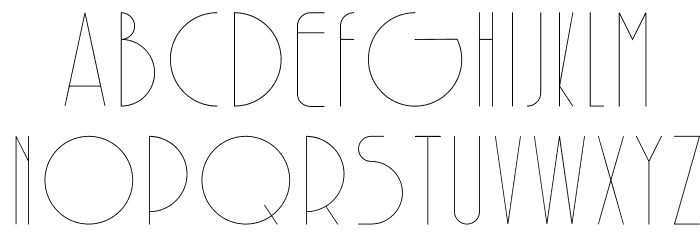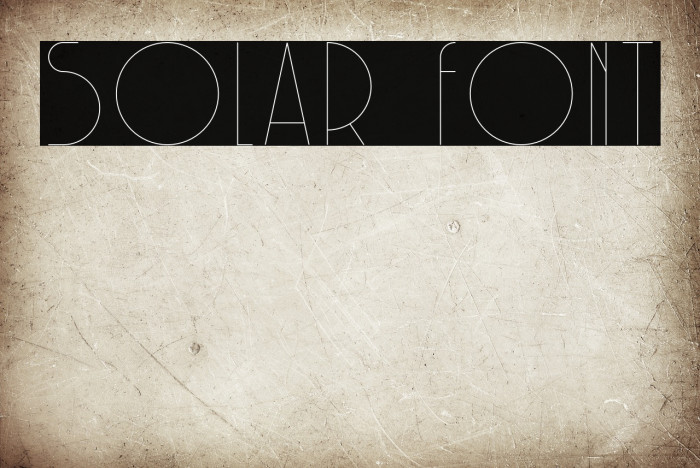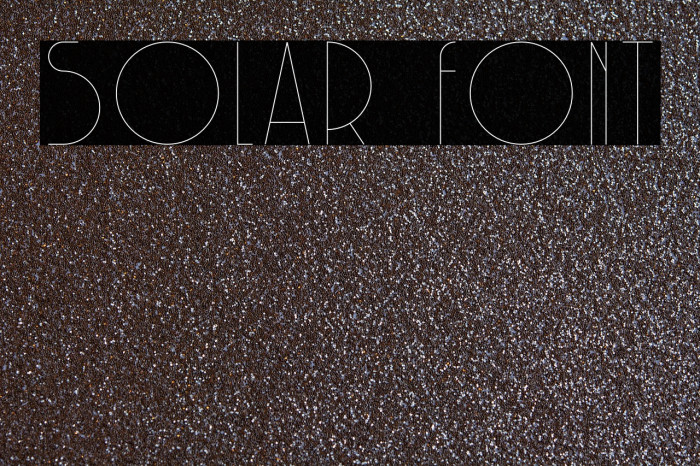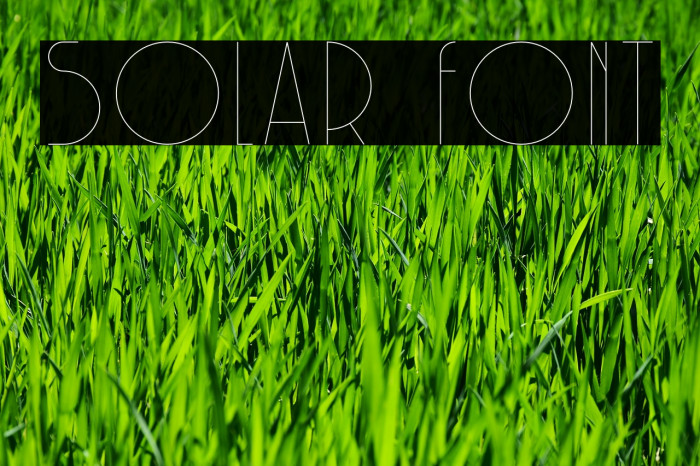
Solar Font
This font features a sleek and modern design with thin, elongated letterforms that convey a sense of elegance and sophistication. The uppercase letters are tall and narrow, with a consistent stroke width that gives the font a minimalist and clean appearance. The lowercase letters maintain the same thin strokes, creating a harmonious and cohesive look across the alphabet. The font's geometric shapes and sharp angles add a contemporary touch, making it suitable for modern design projects. The spacing between characters is tight, enhancing the font's streamlined aesthetic. Overall, this font is ideal for projects that require a stylish and refined look.
A sleek, modern font with thin, elongated letterforms and tight spacing.
- Proposed Projects: Ideal for luxury branding, fashion magazines, modern logos, and high-end product packaging.
- Character Spacing: Tight
- Use Case: Logos, Headlines